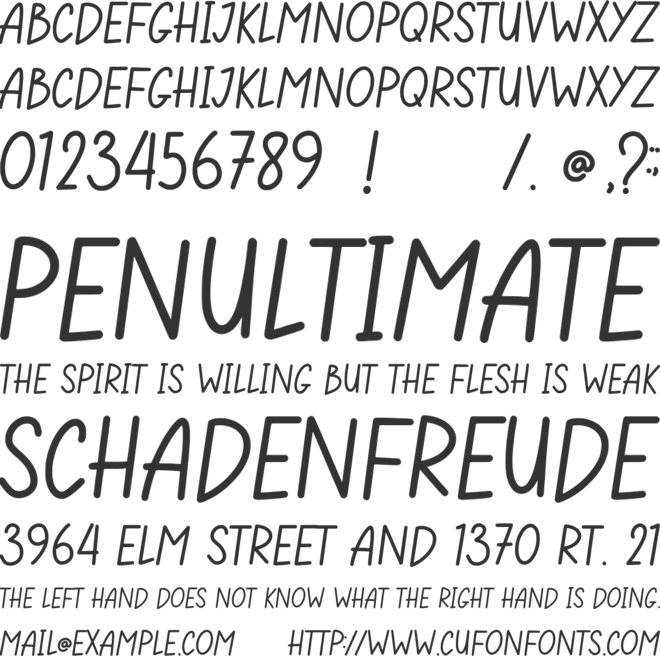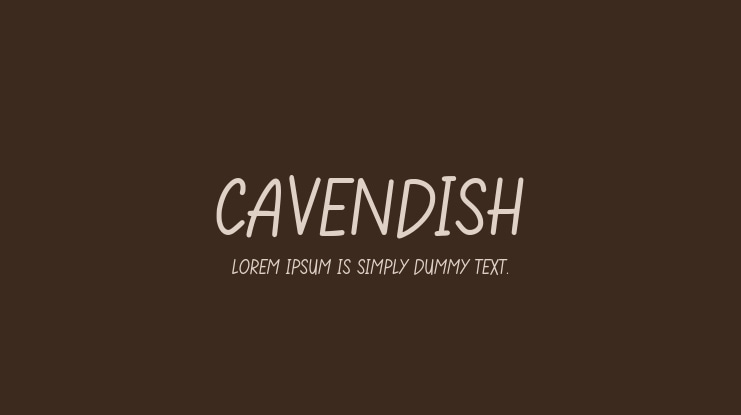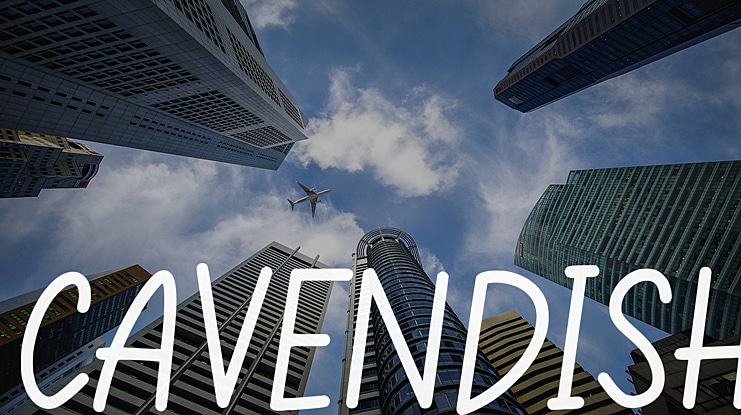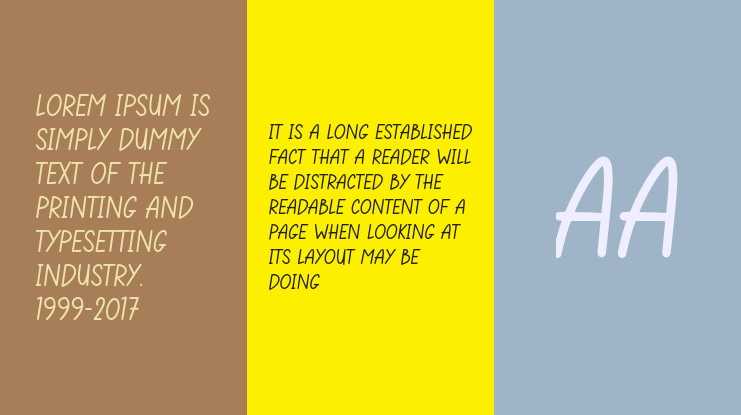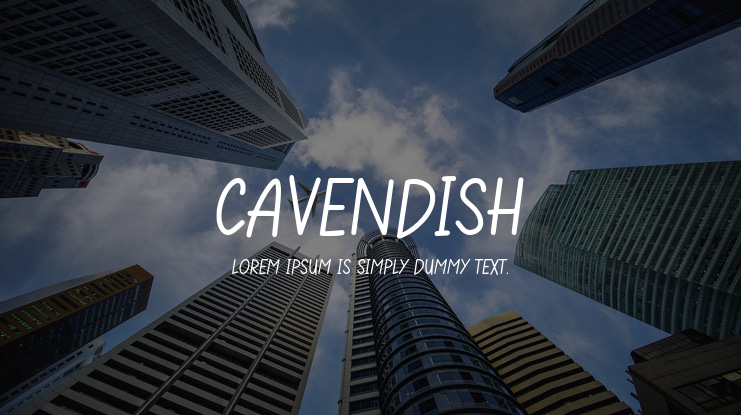
It’s a A Cute Handwritten Font. CAVENDISH is perfect for product packaging, branding project, megazine, social media, wedding, or just used to express words above the background.